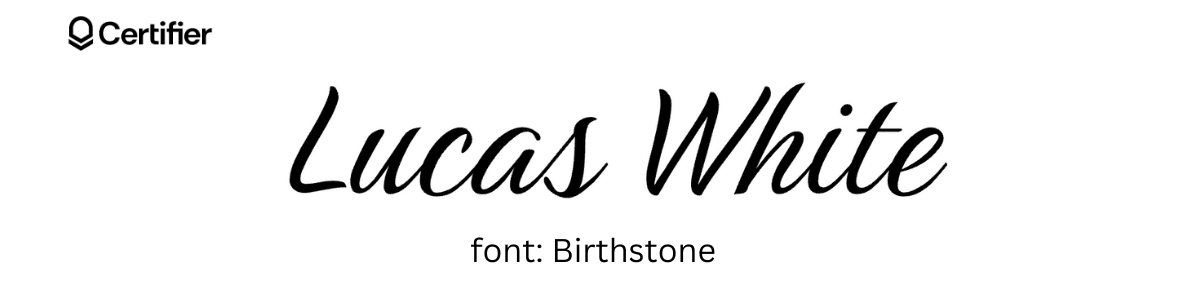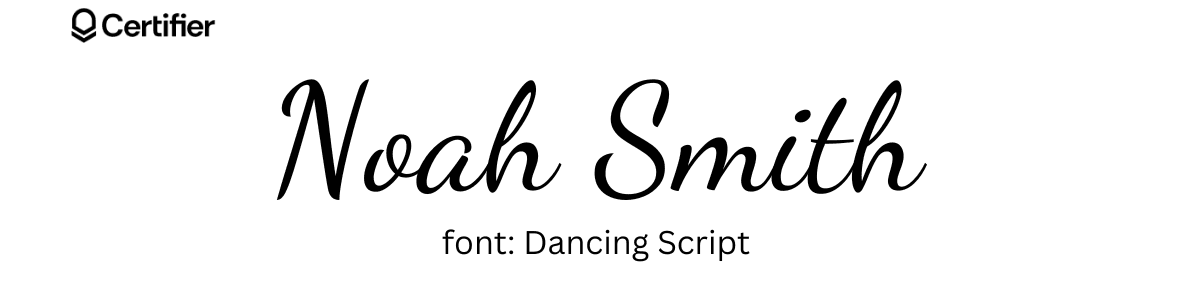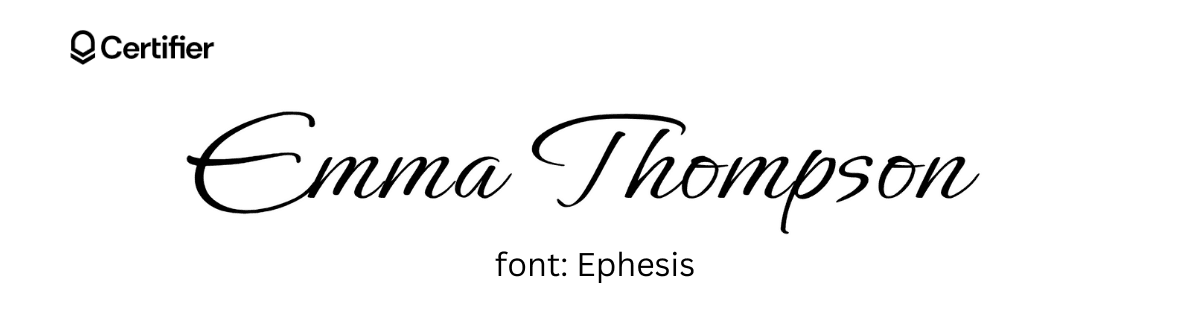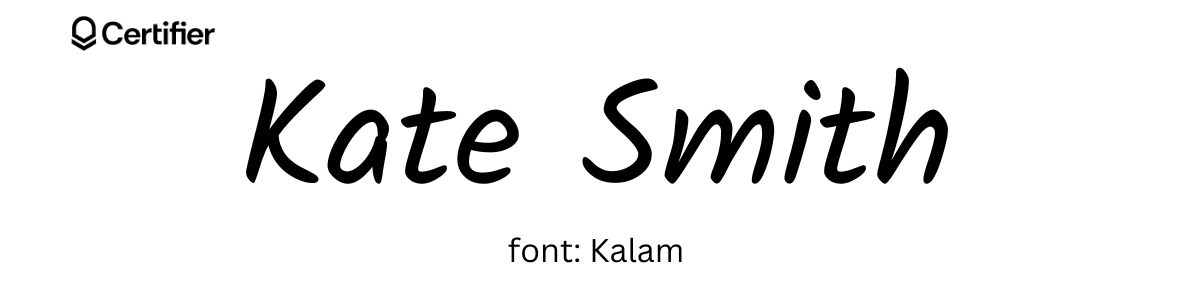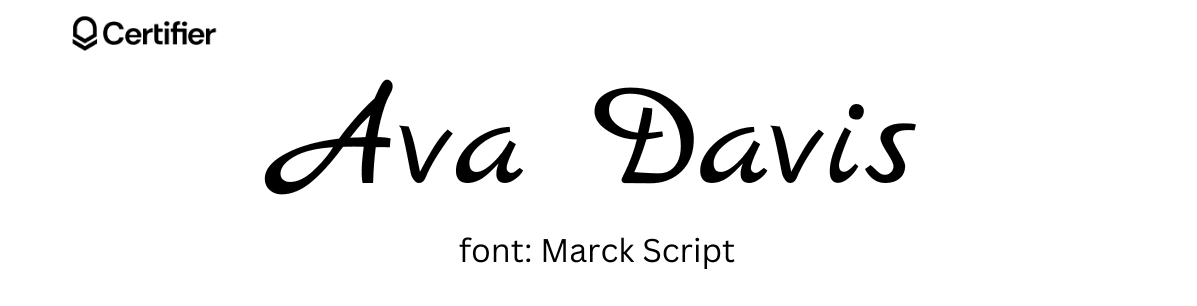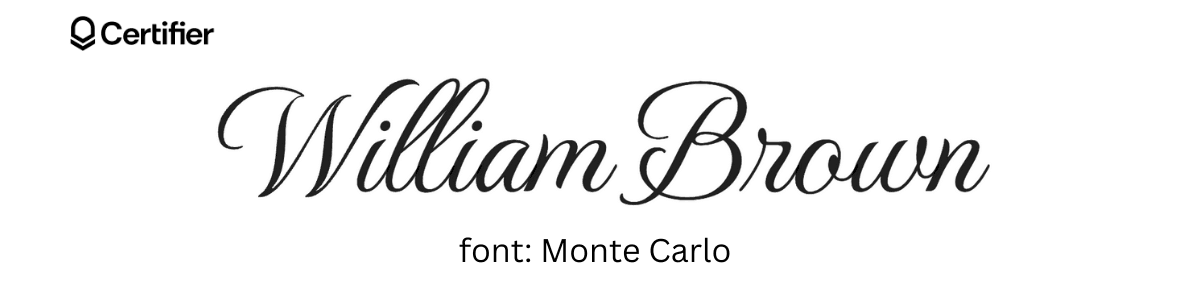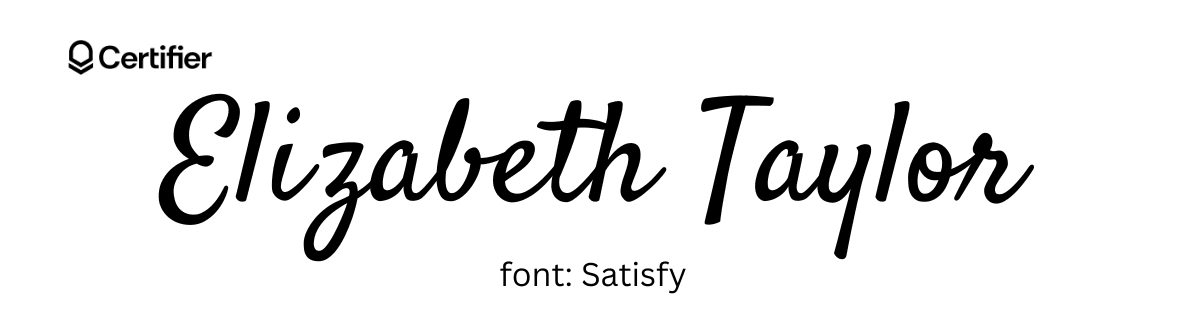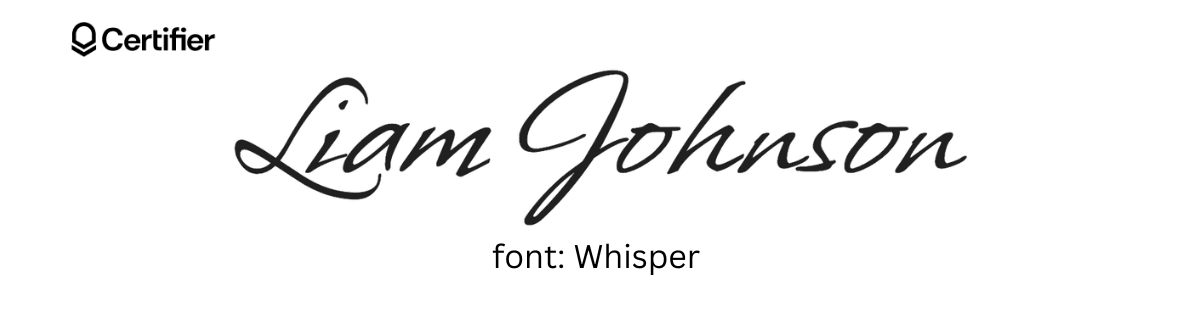
10 Best Fonts That Look Like Signatures: 2026 Handwriting Picks
Change your digital signature from ordinary to extraordinary – it’s a matter of seconds. We’ve picked 10 signature-like fonts that can add a personal yet professional vibe to your documents in 2026. Fast, safe and easy.
If you issue certificates, send branded emails, or sign documents online, a generic font won’t cut it. You need fonts that look like real signatures–ones with natural curves, varied stroke widths, and the imperfect flow of actual handwriting.
We tested dozens of script and calligraphy typefaces and narrowed the list to 10 signature fonts that are free and ready to use.
Signature-like fonts help your certificates look more personal and handwritten.
How to choose the best handwriting font for each certificate use case
The best handwriting font depends on a few aspects, like where the signature appears, how formal the certificate feels, and how easy the name must be to read.
Still, not every signature font works for every certificate. A font that looks elegant on a minimal award certificate may lose clarity on a busy training certificate background. Use this quick guide before you pick a font for signature fields, issuer names, or digital certificate signatures.
Use Case | Best Signature Font | Why It Works | Watch Out For |
|---|---|---|---|
Best formal signature font | Great Vibes or Alex Brush | Elegant strokes, polished curves, and a professional handwritten look | Avoid very small sizes, as thin lines may lose clarity |
Best readable signature font | Satisfy or Kalam | Cleaner letter shapes and fewer decorative loops keep the name easy to read | May look less premium than ornate calligraphy fonts |
Best for busy certificate backgrounds | Kalam or Satisfy | Strong readability on designs with images, patterns, borders, or textured backgrounds | Use enough contrast between the font and the background |
Best for premium or event certificates | Monte Carlo or Great Vibes | Strong visual presence, formal style, and a high-end signature feel | Add enough spacing so the signature does not dominate the layout |
Best for creative programs | Birthstone or Ephesis | Expressive curves add personality without making the certificate feel too plain | Ephesis can feel too decorative on highly formal credentials |
Best for professional certificates | Alex Brush or Marck Script | Balanced handwriting style that feels personal, but still business-ready | Test the font with long names before bulk issuance |
Best for international characters in recipient or issuer names | Kalam or Dancing Script | Better readability and stronger support for special characters | Check every accented character in preview before sending certificates |
Pick the signature font that matches the certificate’s purpose first, then adjust size, placement, and color inside Certifier’s editor.
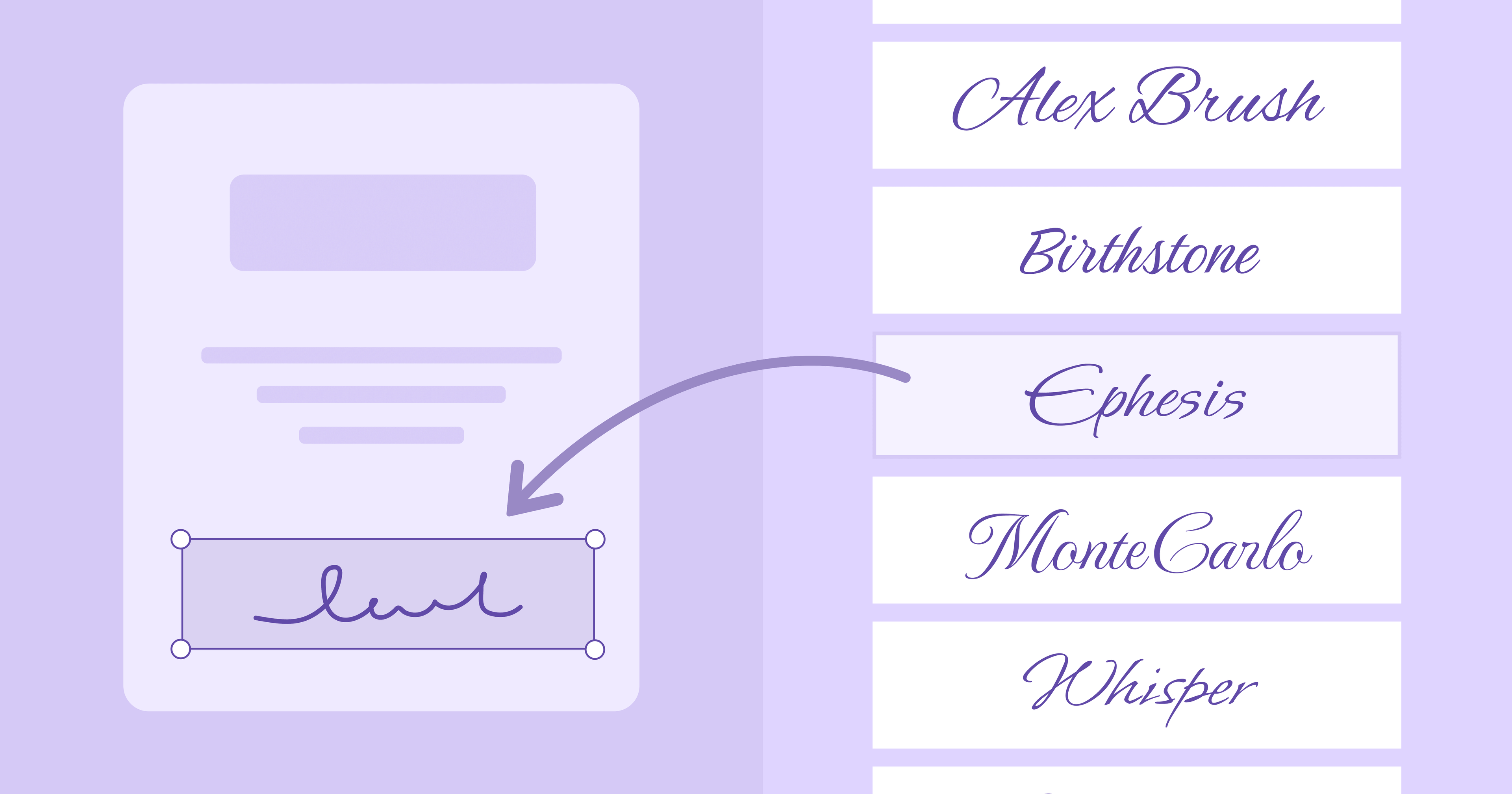
10 Fonts that look like signatures
Below are 10 web fonts that mimic cursive handwriting and look like handwritten signatures. All of them are available in Certifier for free (and are free to use).
01 Alex Brush
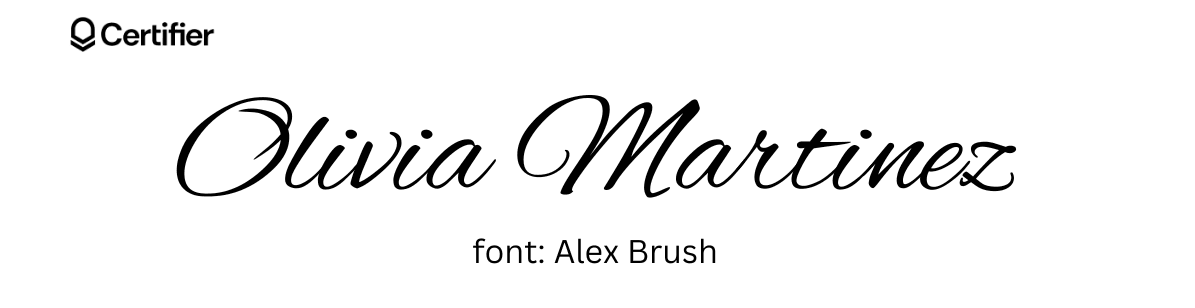
Add a touch of elegance to every document with this signature-like font. It’s elegant and may look great on both bright and dark backgrounds. Just change the font color accordingly. If you want to issue rather formal, elegant credentials, Alex Brush is a great choice.
It’s also a popular MS Word font for signatures. Install it via Google Fonts and use it in any document editor.
Besides certificates, its brush calligraphy design will look amazing also in: wedding invitations, product packaging, business cards, and personal branding materials, even social media posts if you feel like it.
Best for: Academic certificates, professional training certificates, formal achievement certificates
Why it works: Clean calligraphy style that looks handwritten but polished
The best MS Word font for signatures depends on the style you want. Lucida Handwriting, Segoe Script, Brush Script MT, and Freestyle Script are common built-in options. For a more elegant signature font, install free Google Fonts like Alex Brush, Great Vibes, or Dancing Script and use them in Word.